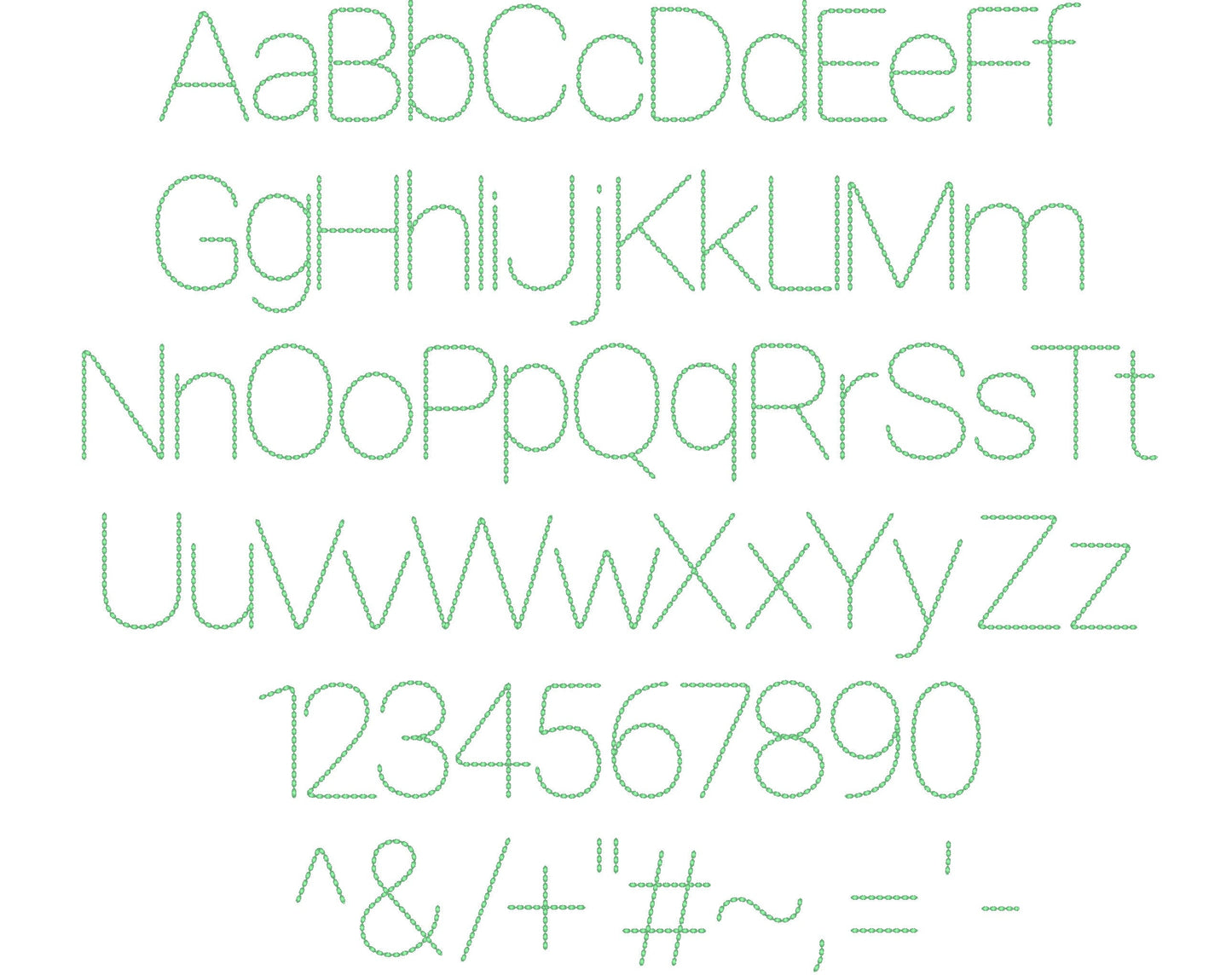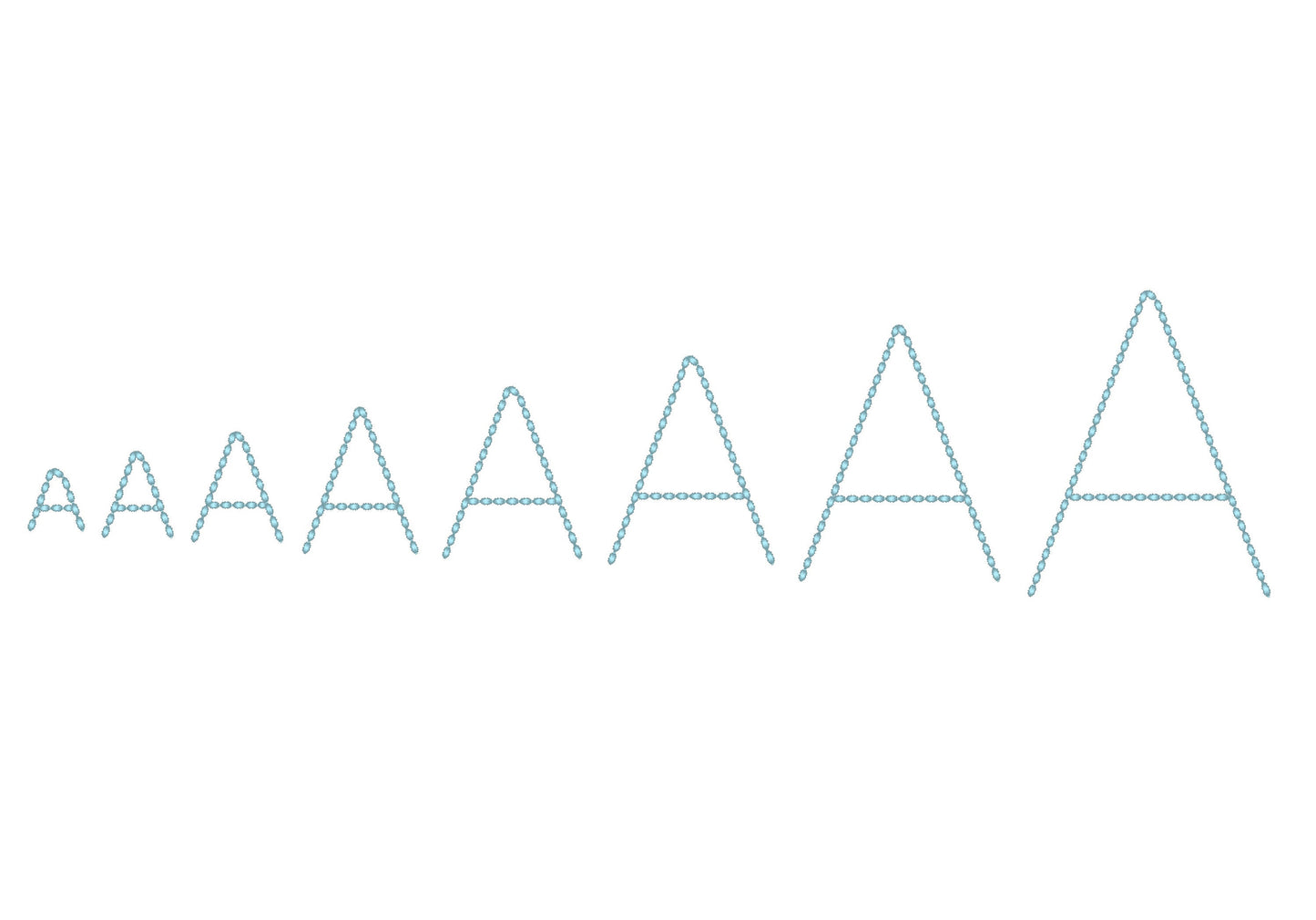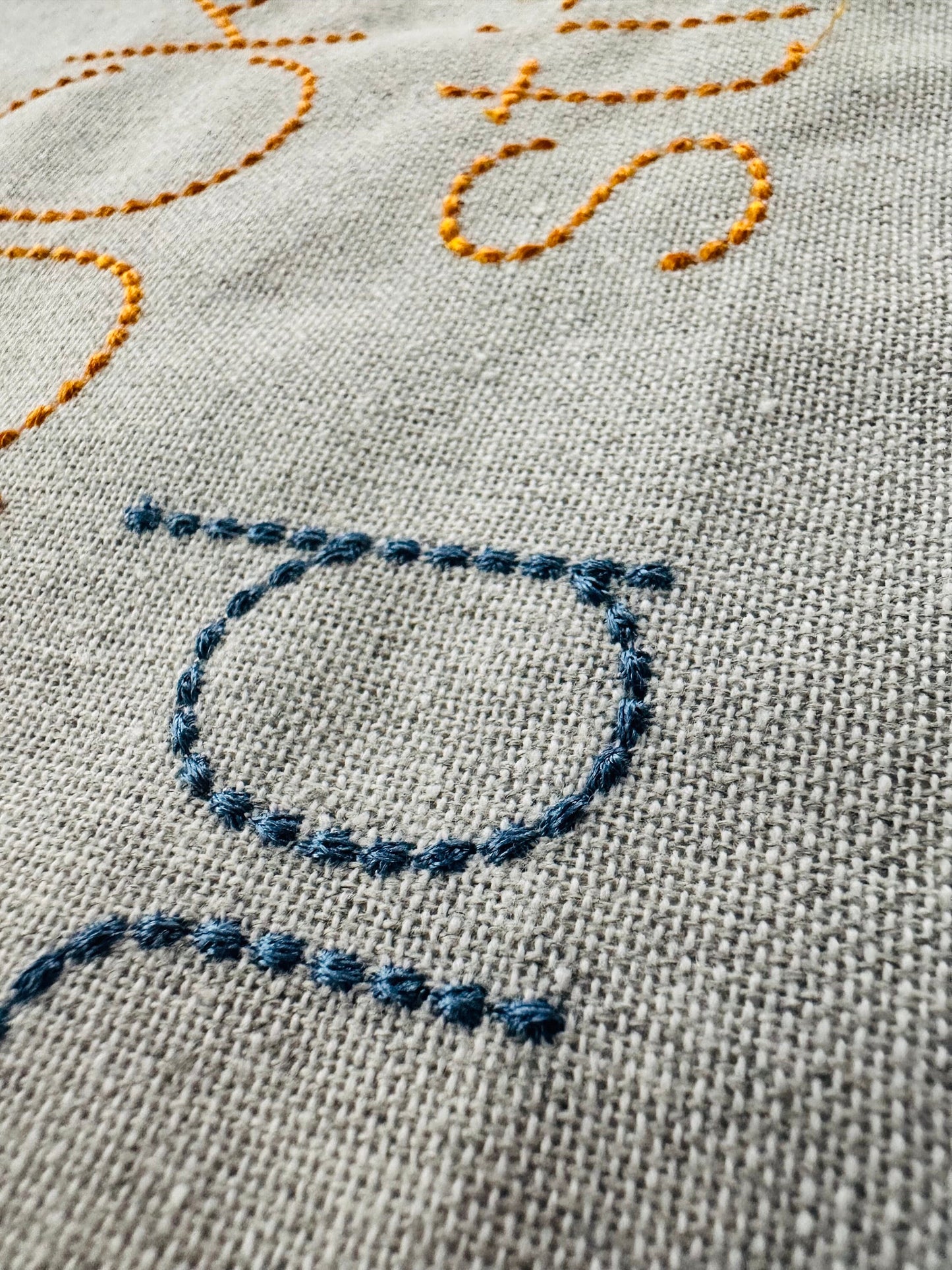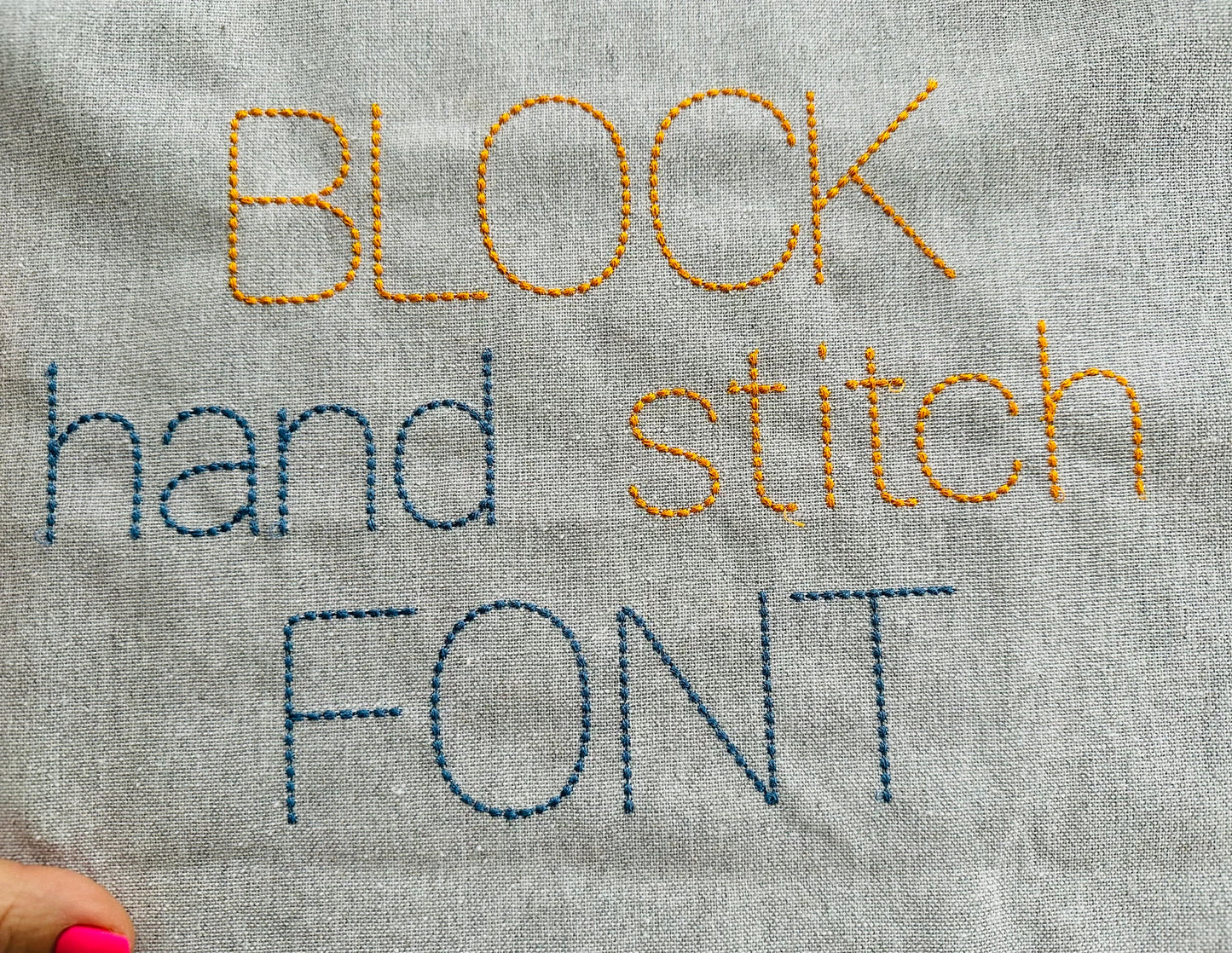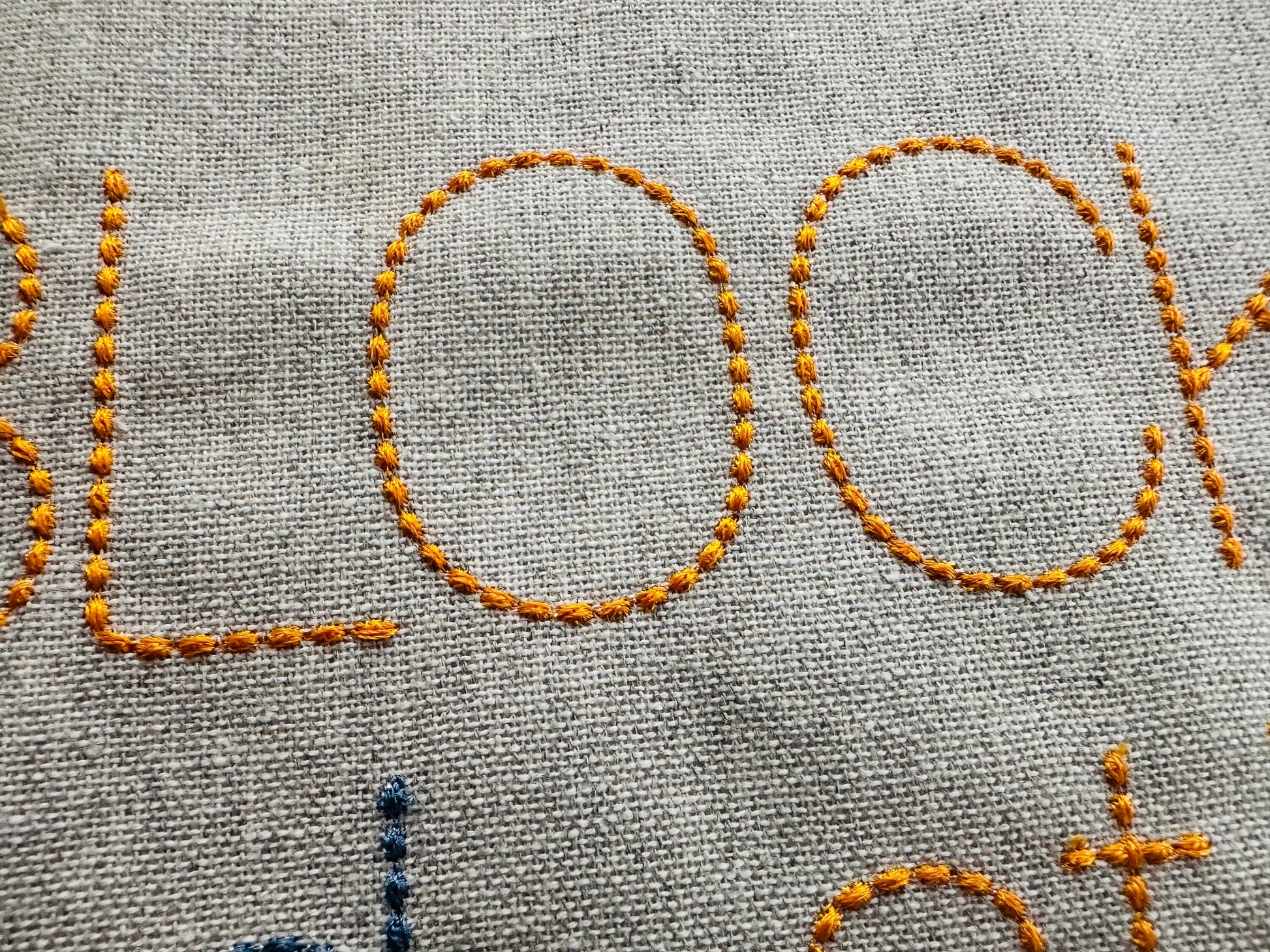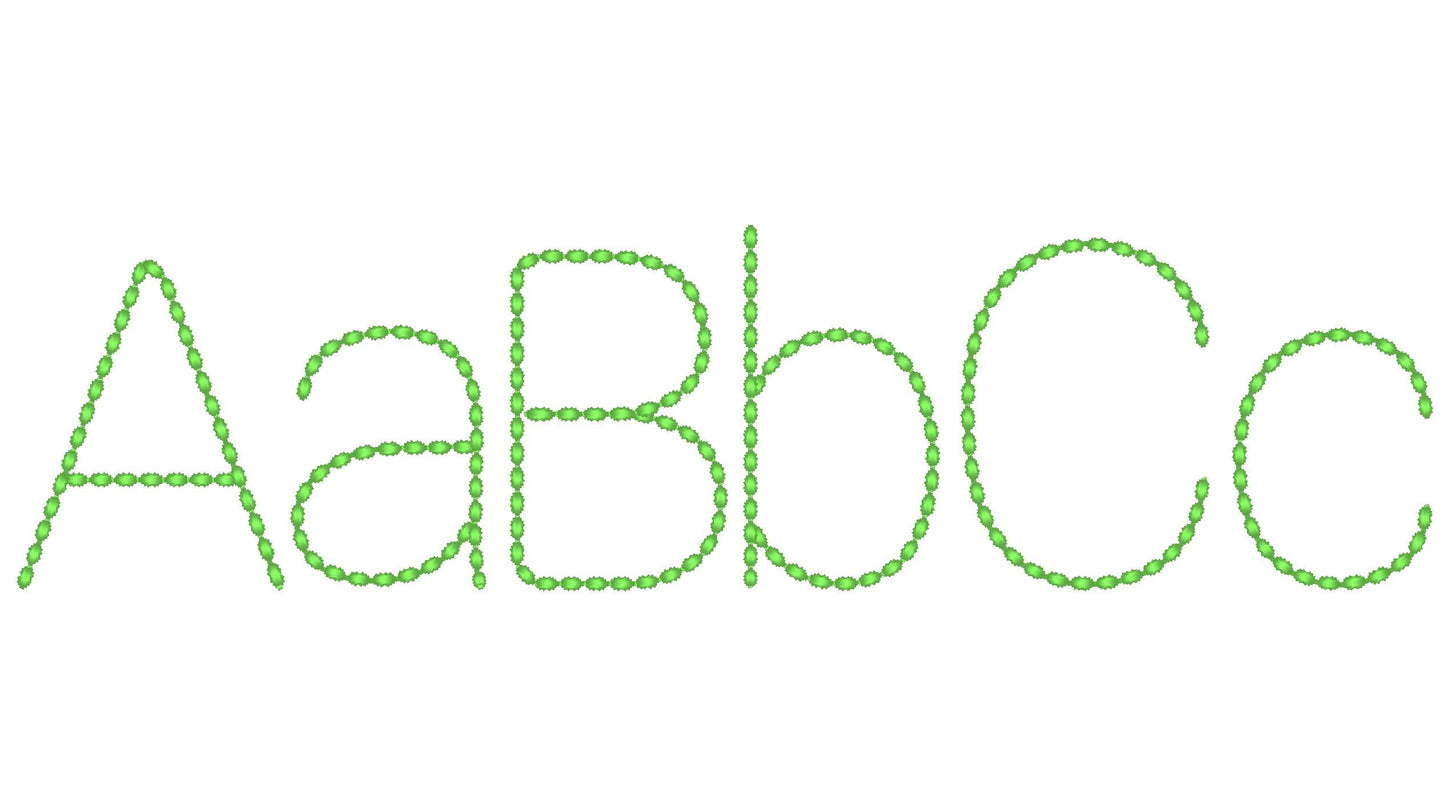
Hand Stitch Effect Block Font
Included: Uppercase A-Z, Lowercase a-z, Numbers 0-9, Punctuation
A playful block font with a hand-stitched seed stitch look. Made for kids' names, necklines, pockets and small gifts.
Uppercase and lowercase letters, numbers 0 to 9 and punctuation. Eight sizes: 0.6, 0.9, 1.2, 1.5, 1.8, 2.2, 2.7 and 3.2 inches.
• Hand stitch effect block font
• Uppercase, lowercase, numbers 0 to 9, punctuation
• 8 sizes, 0.6 to 3.2 in